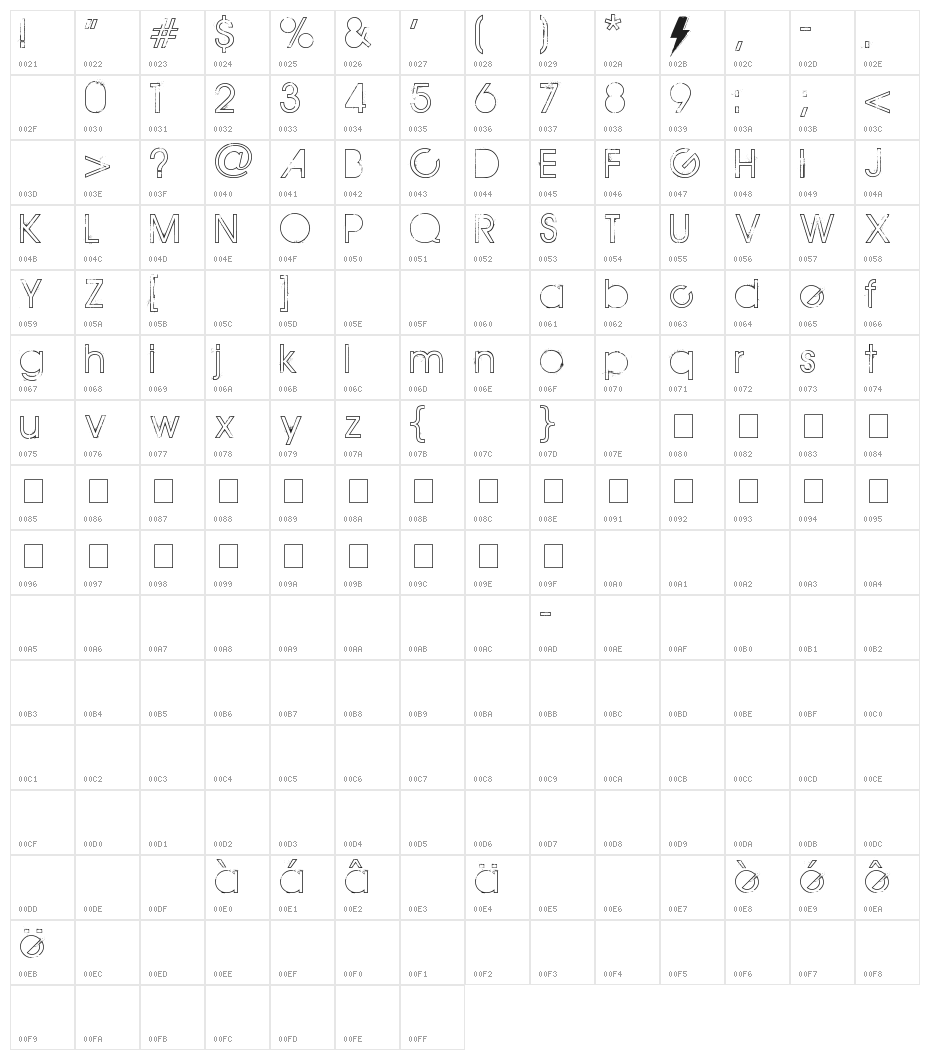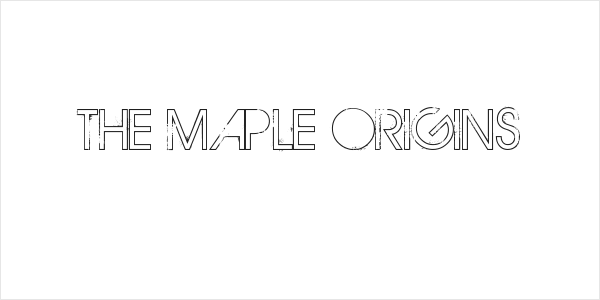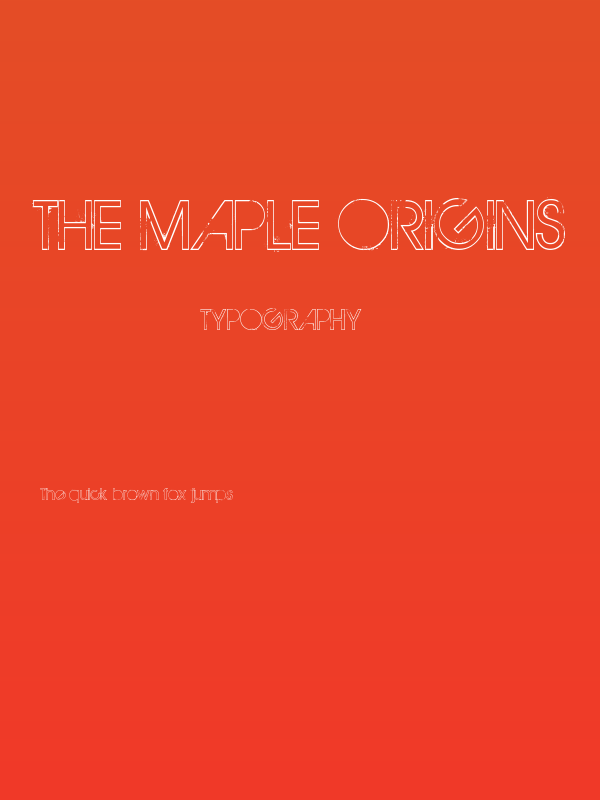
THE MAPLE ORIGINS Font
THE MAPLE ORIGINS Description
This font features a modern and geometric design with clean lines and a minimalist aesthetic. The uppercase and lowercase letters are crafted with a consistent stroke width, giving it a uniform appearance. The characters are slightly condensed, which adds to its sleek and contemporary look. The numerals and special characters maintain the same geometric style, ensuring a cohesive overall appearance. The font's simplicity and clarity make it versatile for various design applications.